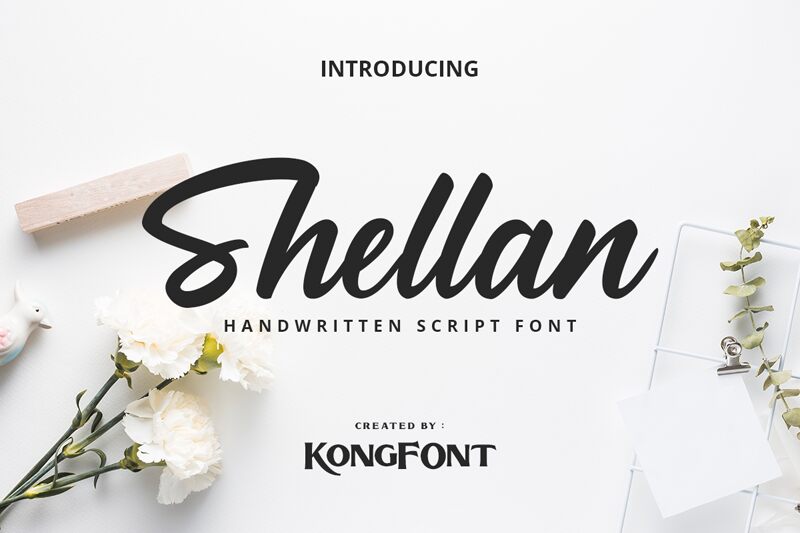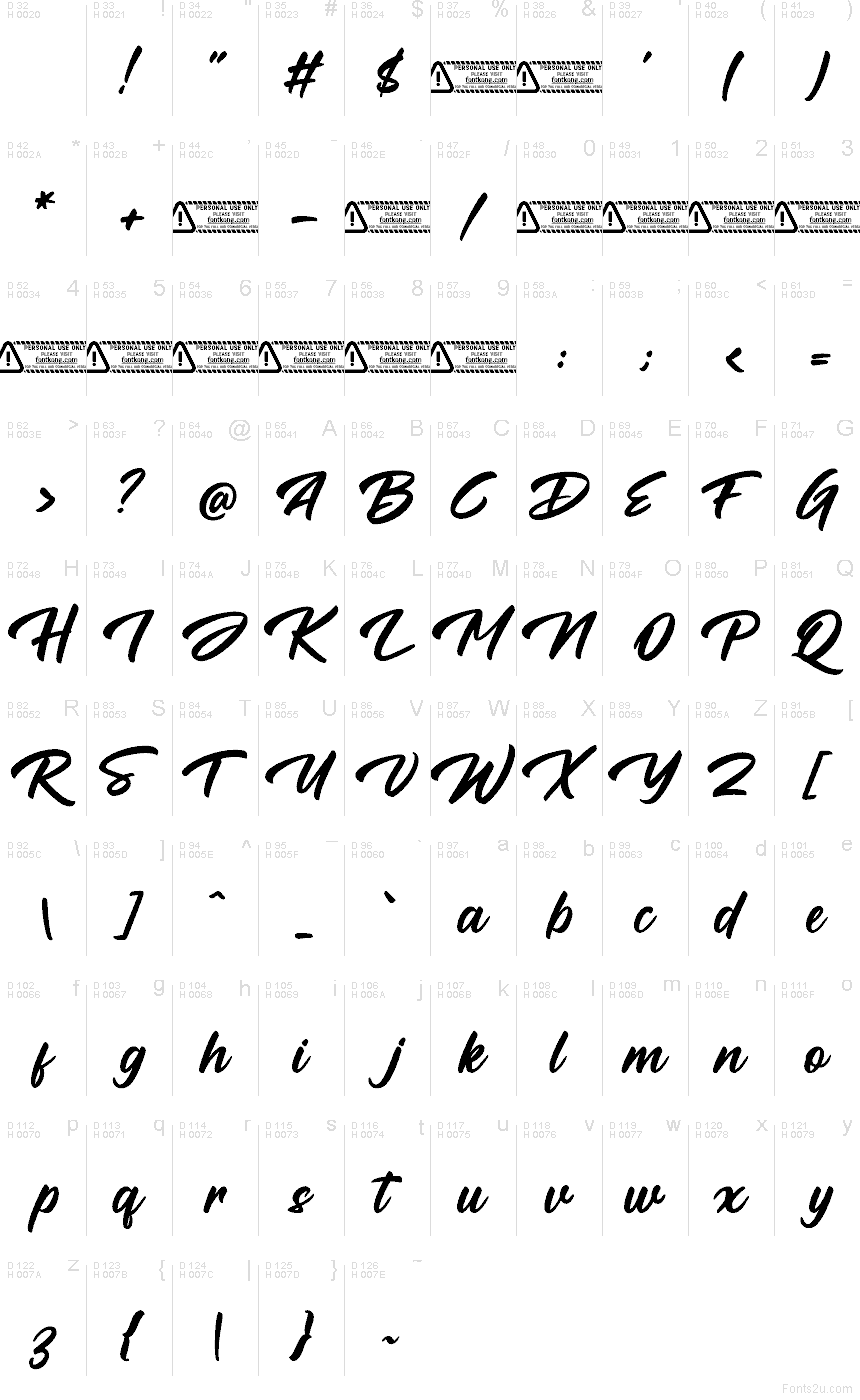
Shellan
Shellan font by Kong Font is a free brush script typeface that finally makes hand-lettered style both bold and readable. Its inky strokes are thick and confident, with just enough natural variation to feel handwritten without becoming messy. The letters connect smoothly, creating a flowing word shape that stays clear even at smaller sizes, so you get that signature-style flair without sacrificing legibility.
Using Shellan, this free font shines on logos, product packaging, social media graphics, name badges, posters, and bold headlines where you want personality to come through at a glance. It carries a friendly, modern energy—slick like marker on glossy paper, but controlled. Pair Shellan with a clean sans serif for body text and let it take the lead in larger sizes to create a strong, memorable hierarchy in your designs.